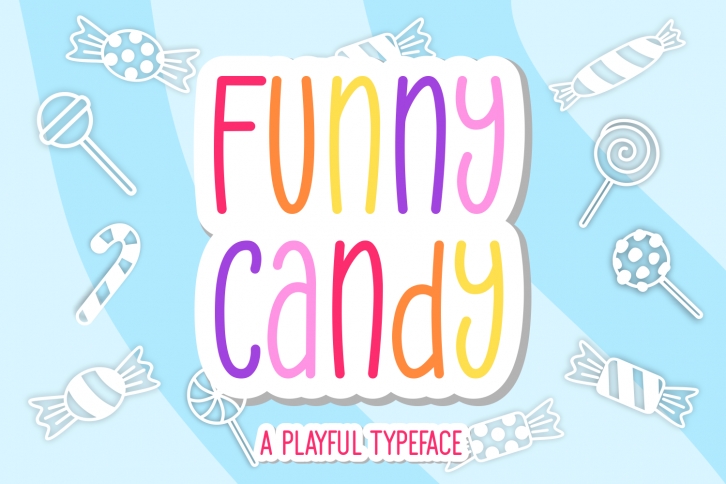
Funny Candy is a simple, quirky and adaptable handwritten font. Its informal style and casual vibe will make this font a go-to choice for each of the creations that require a relaxed touch.